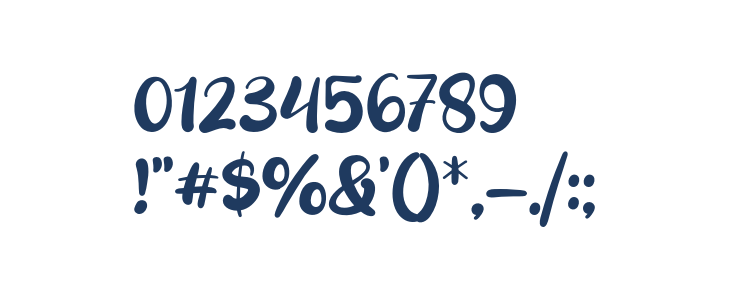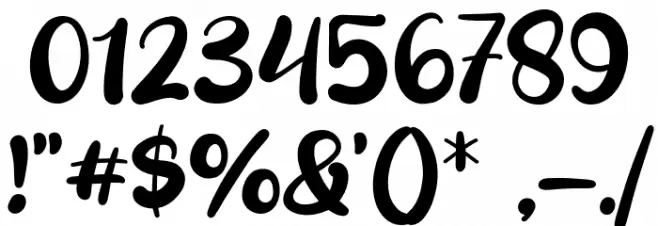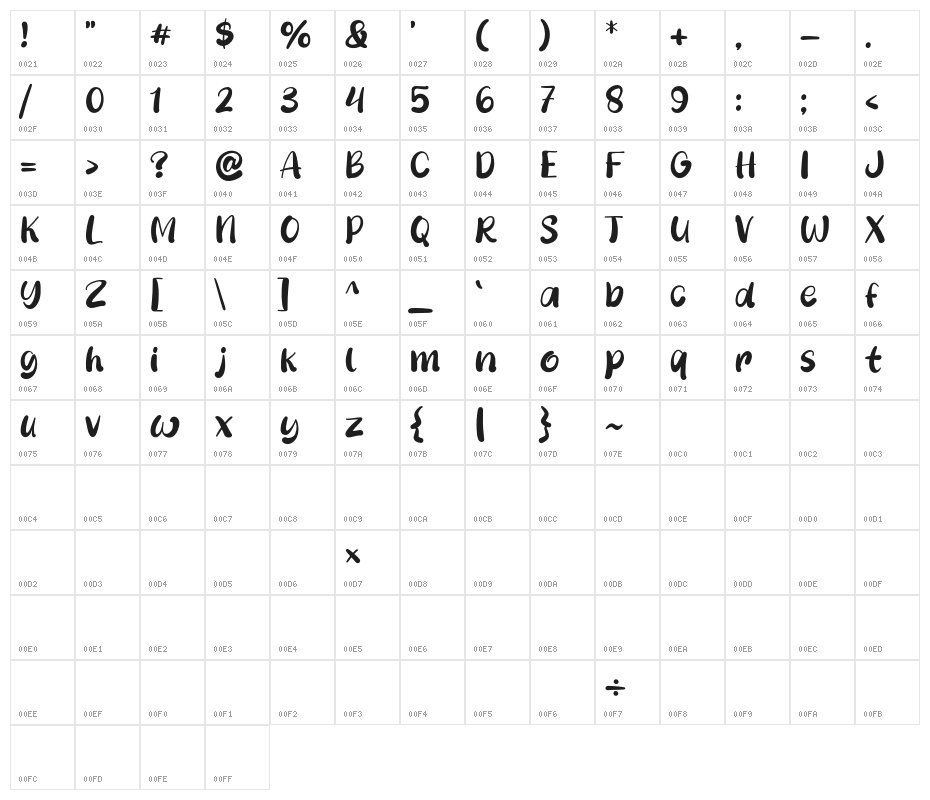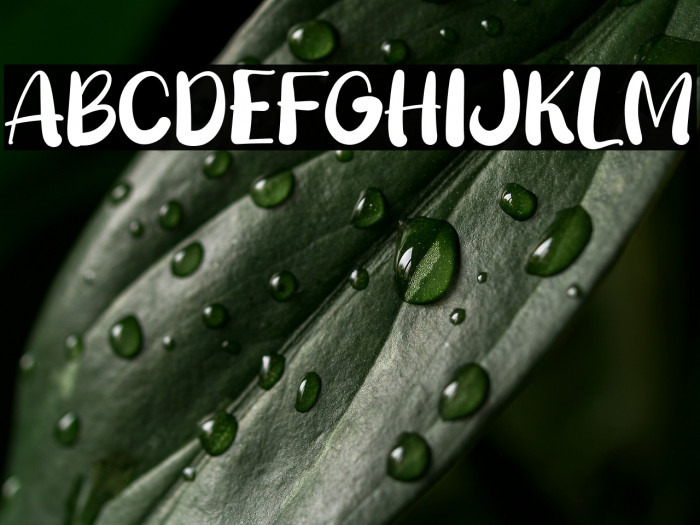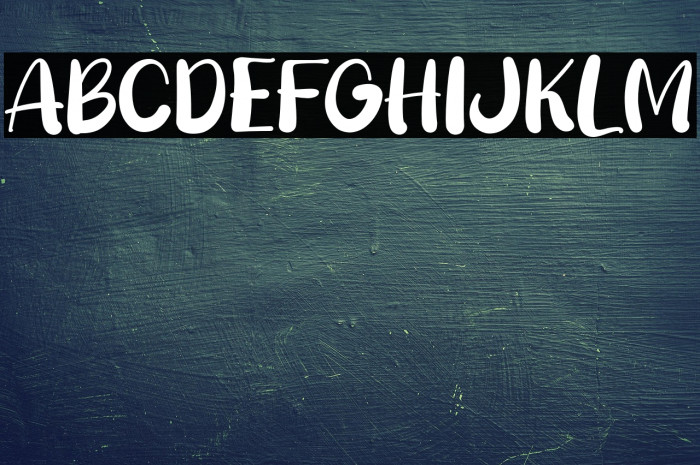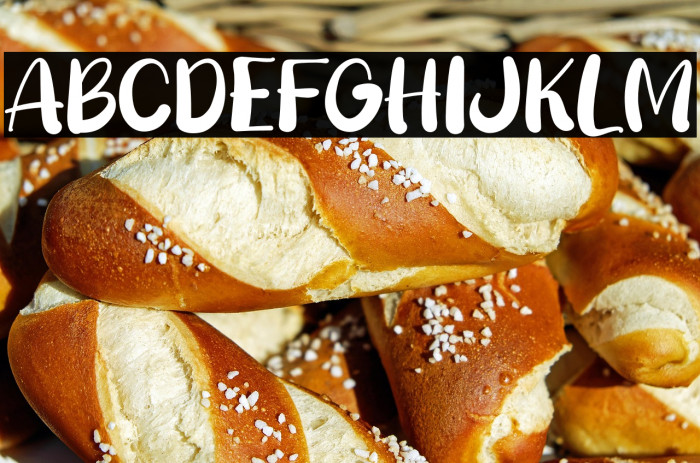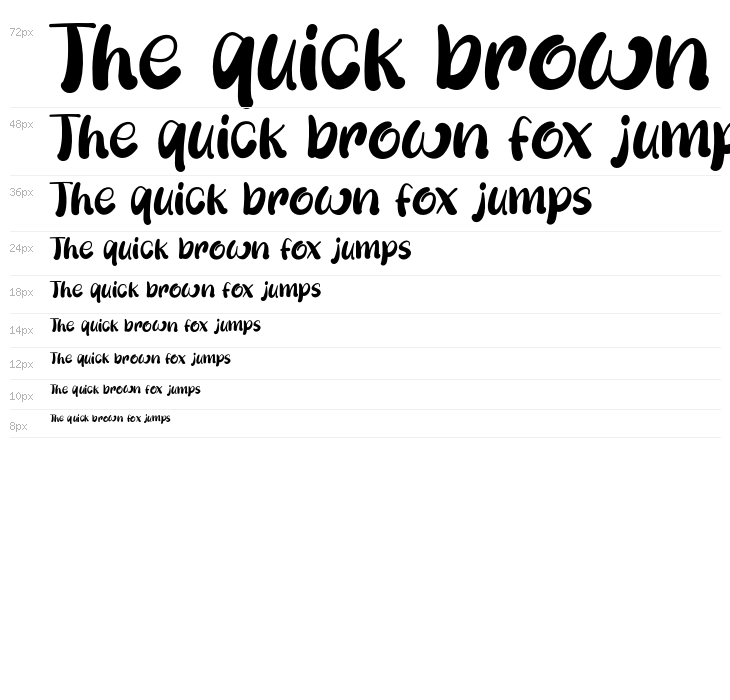
Corinto Town Font
Corinto Town Description
This font features a playful and bold script style with a handwritten feel. The characters are rounded and slightly slanted, giving a casual and friendly appearance. The uppercase letters are consistent in height, while the lowercase letters maintain a smooth flow, enhancing readability. Numbers and special characters are designed with the same playful aesthetic, making them stand out. The overall design is cohesive, with each character complementing the others, creating a harmonious look. This font is ideal for projects that require a touch of personality and warmth.
A playful, bold script font with a handwritten feel from Uncategorized fonts.
- Font: Corinto Town
- Proposed Projects: Ideal for greeting cards, invitations, playful branding, and social media graphics.